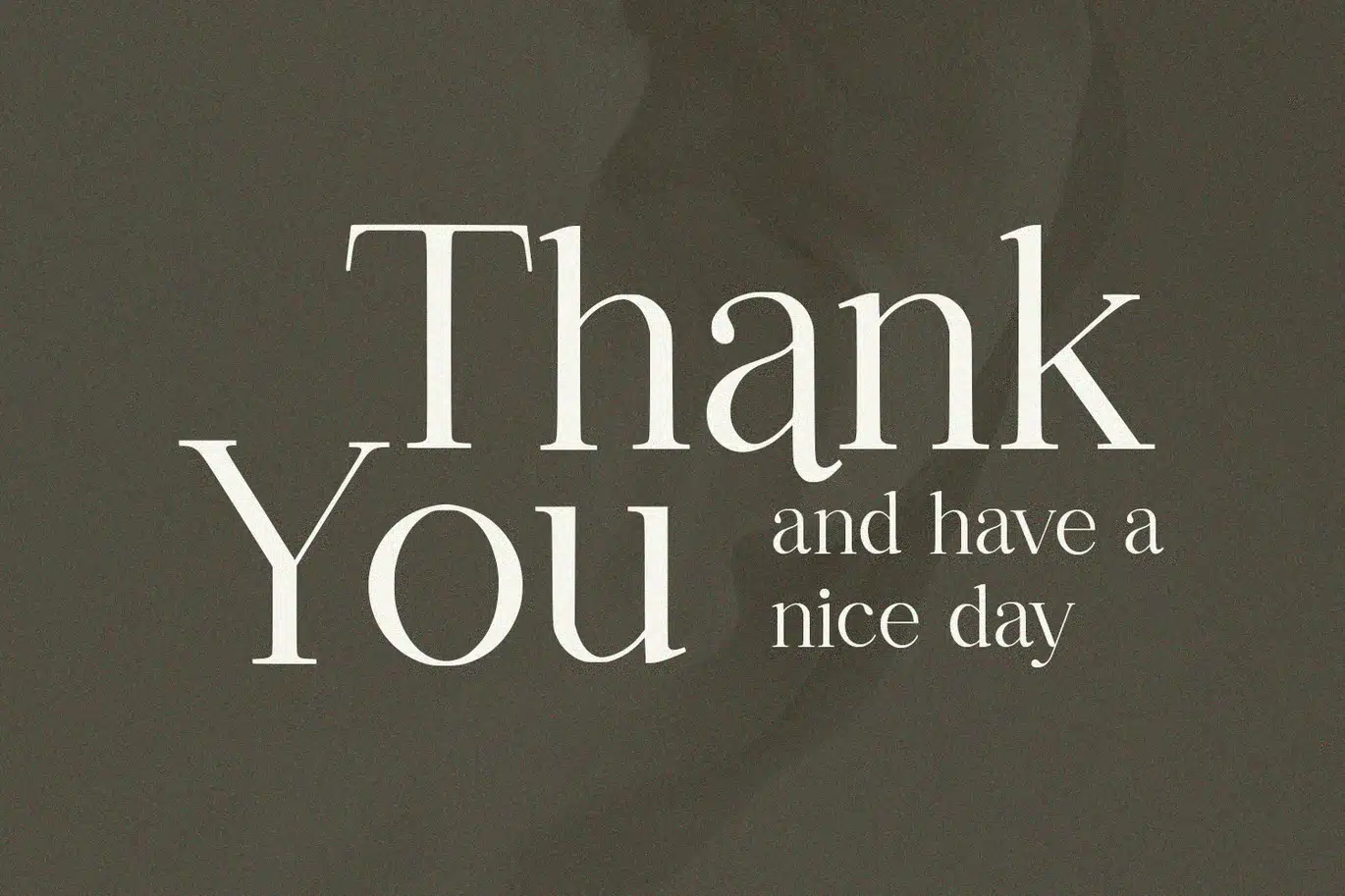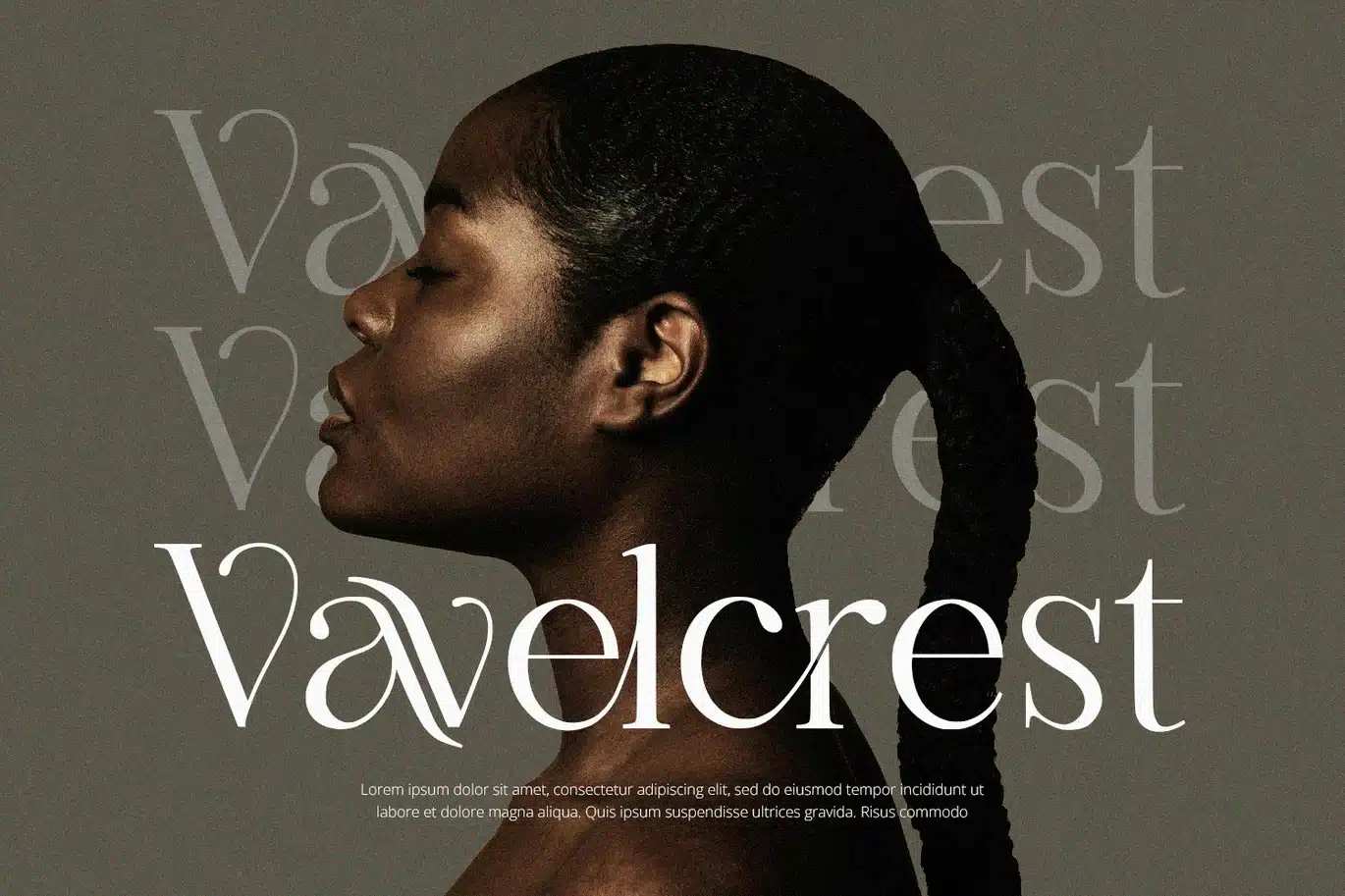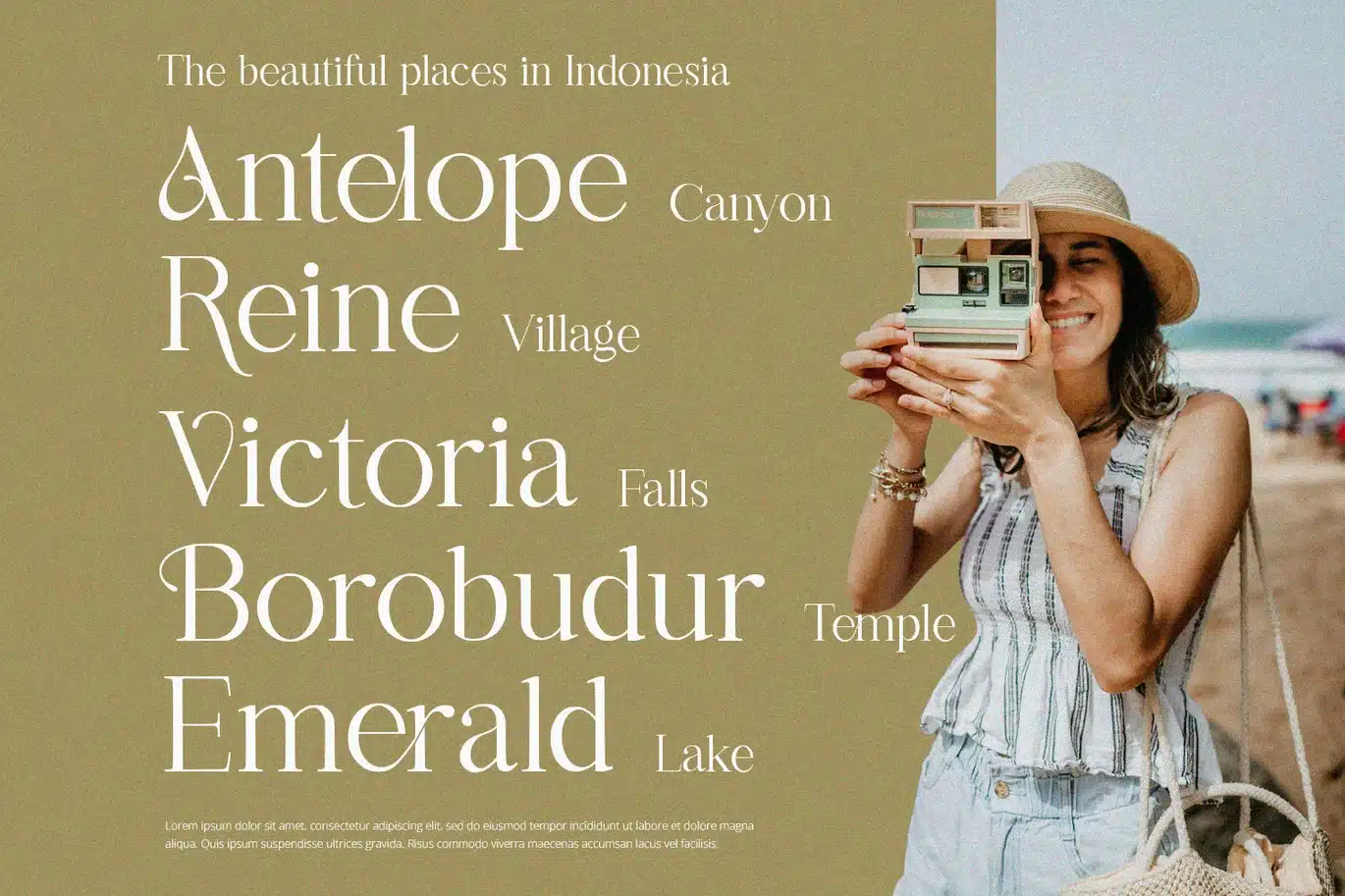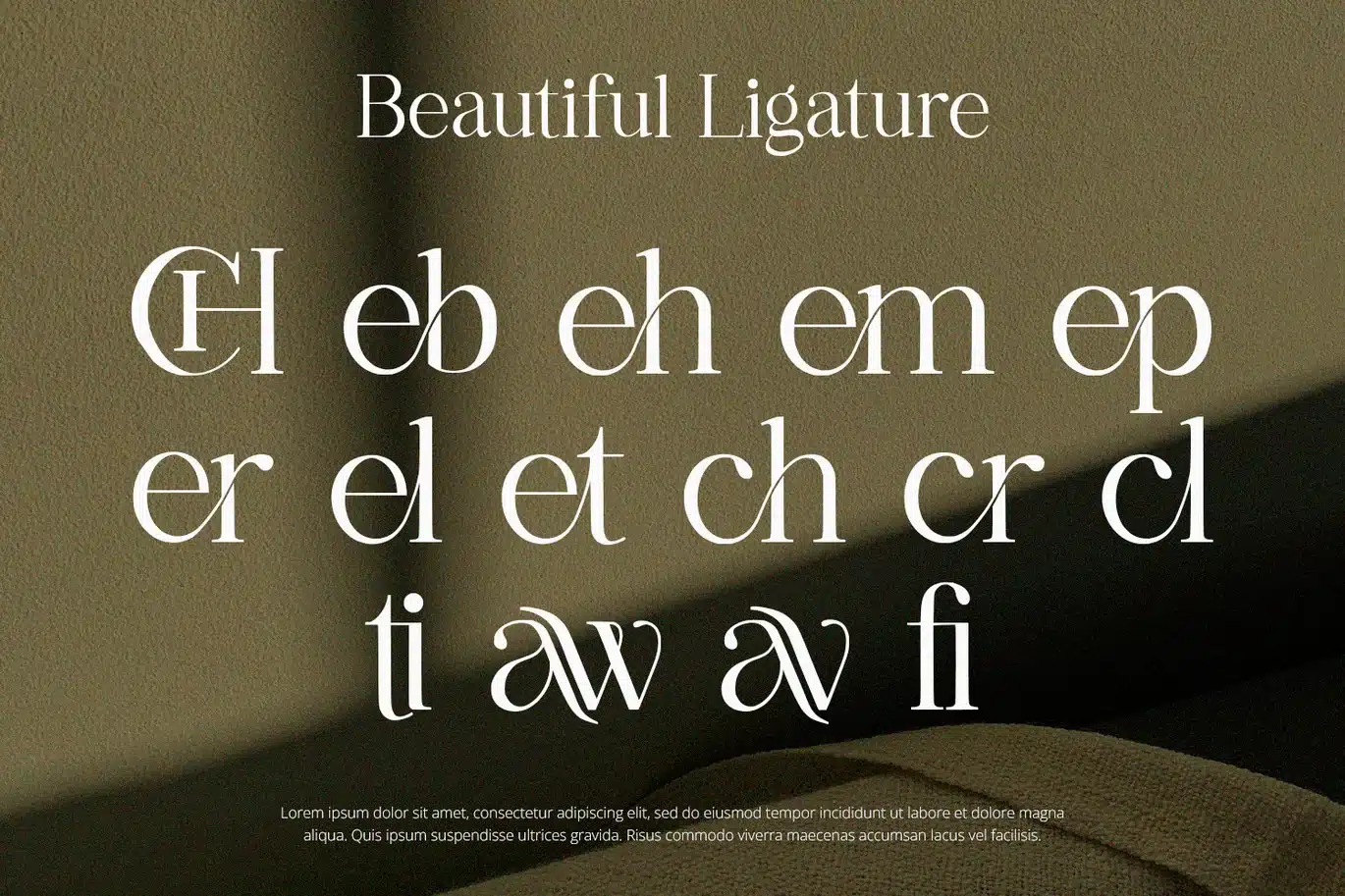
Aethelion Font
Aethelion is serif font with modern feels.
- Numerals
- Punctuations (OpenType Standard)
- Accents (Multilingual Characters)
- Ligatures and Alternative Style Stylistic Set